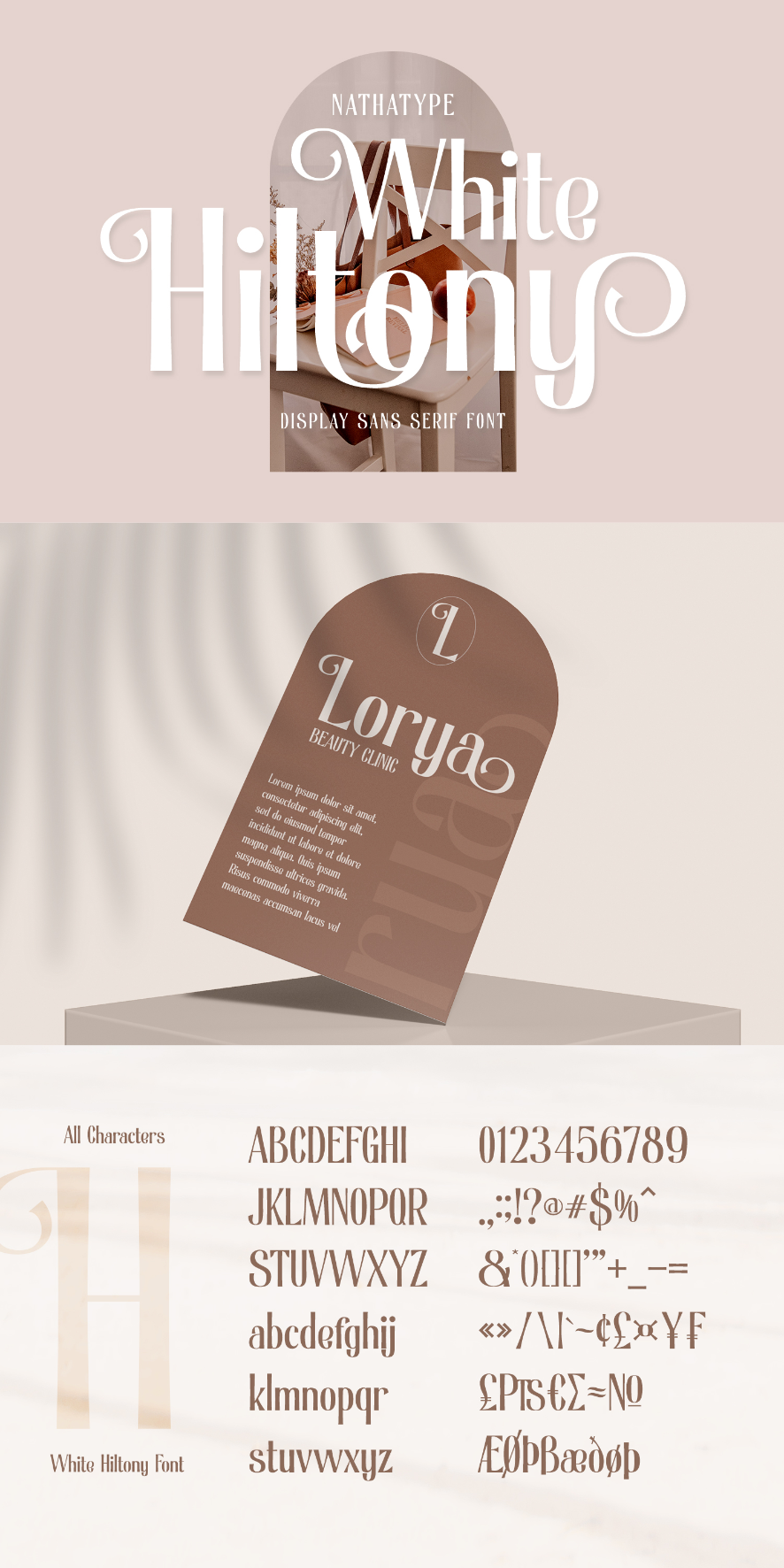
White Hiltony Font
About White Hiltony
With White Hiltony, worry no more about a perfect font for your designs as it is a lovely display sans serif font applicable for elegant, stylish designs. This font has no serif making it look more modern and simple. Furthermore, White Hiltony has regular structures to make it legible enabling you to freely use the font due to its great legibility. Enjoy the features available here.
White Hiltony fits best for various design projects, such as brandings, posters, banners, logos, magazine covers, quotes, headings, printed products, greeting cards, merchandise, social media, etc. Find out more ways to use this font by taking a look at the font preview.